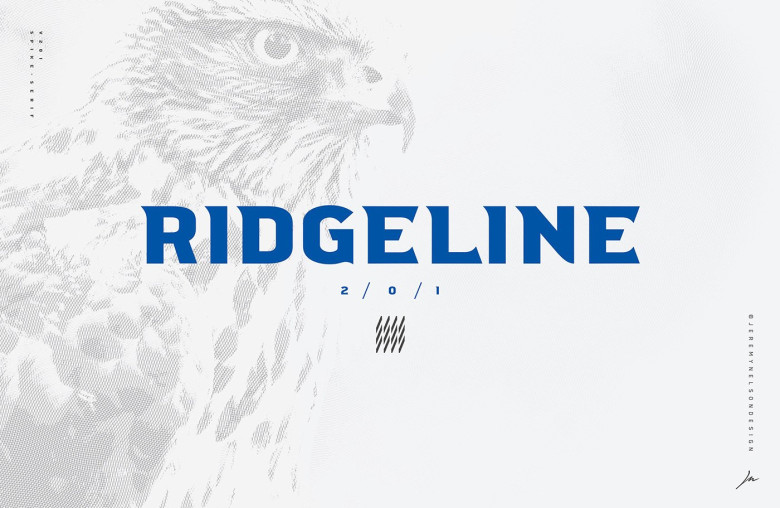
Ridgeline 201 Typeface
Introducing our first geometric, Introducing Ridgeline 201! It is designed and shared by Jeremy Nelson. Ridgeline 201 | Athletic display typeface inspired by speed, agility, and power. Very suitable for greeting cards, branding materials, business cards, quotes, posters, and more! is perfect for editorials, headlines, apparel design—the possibilities are endless.